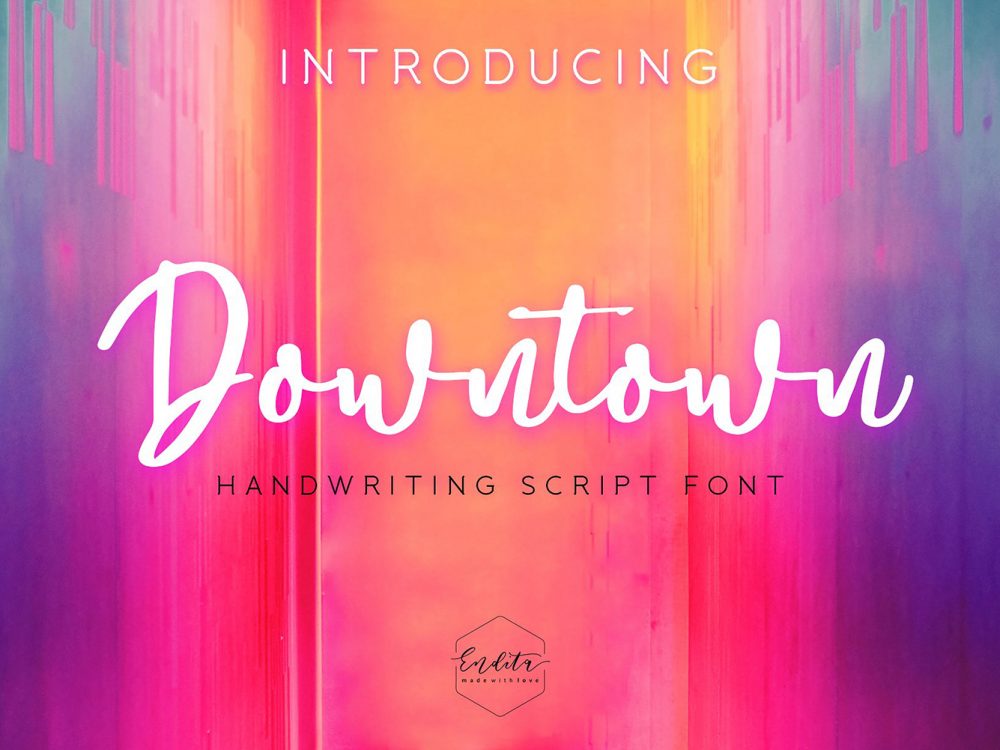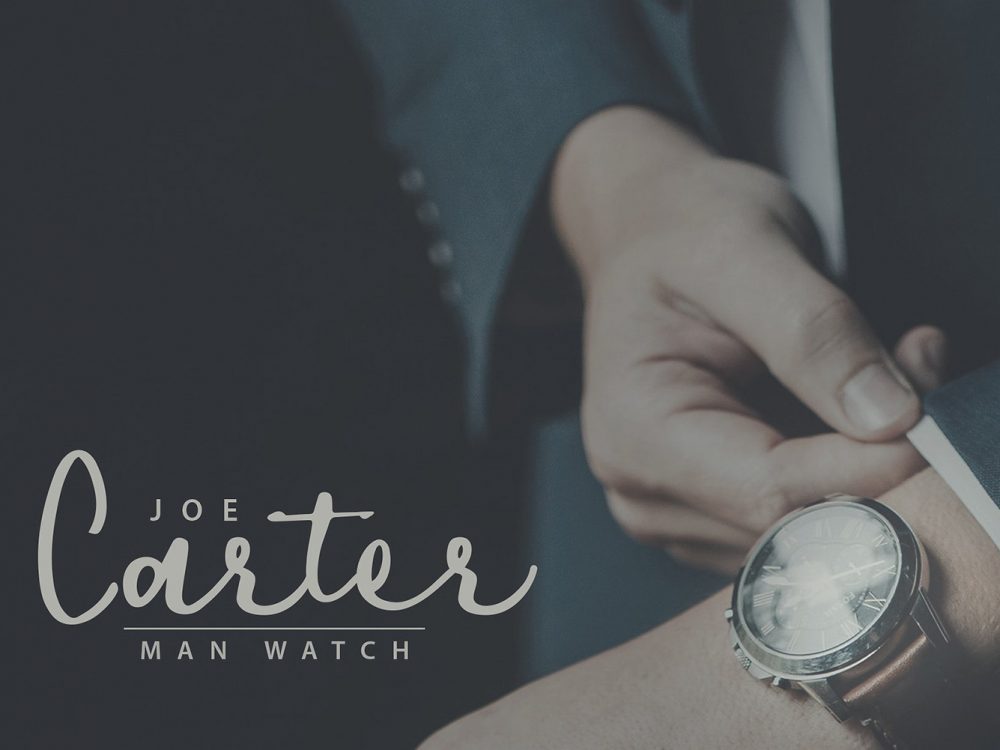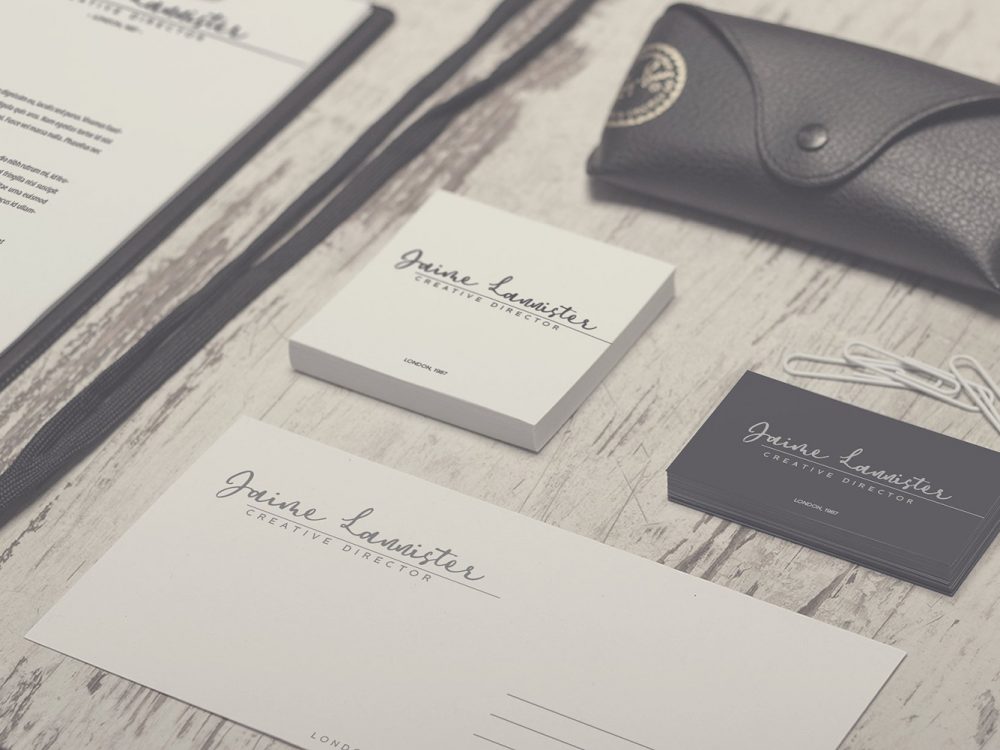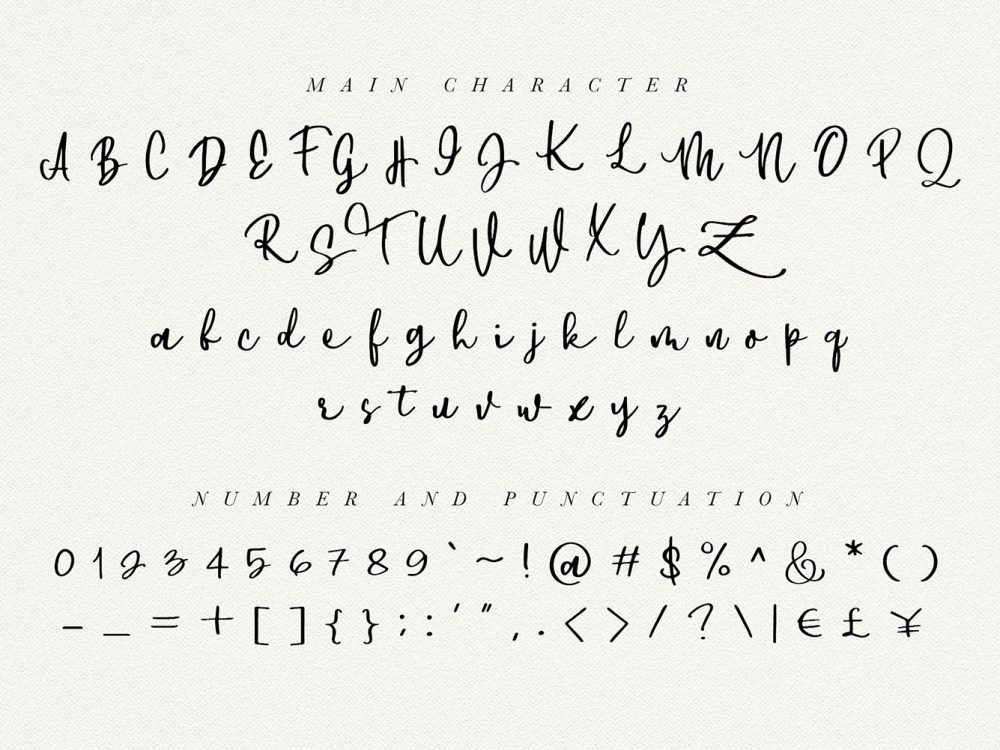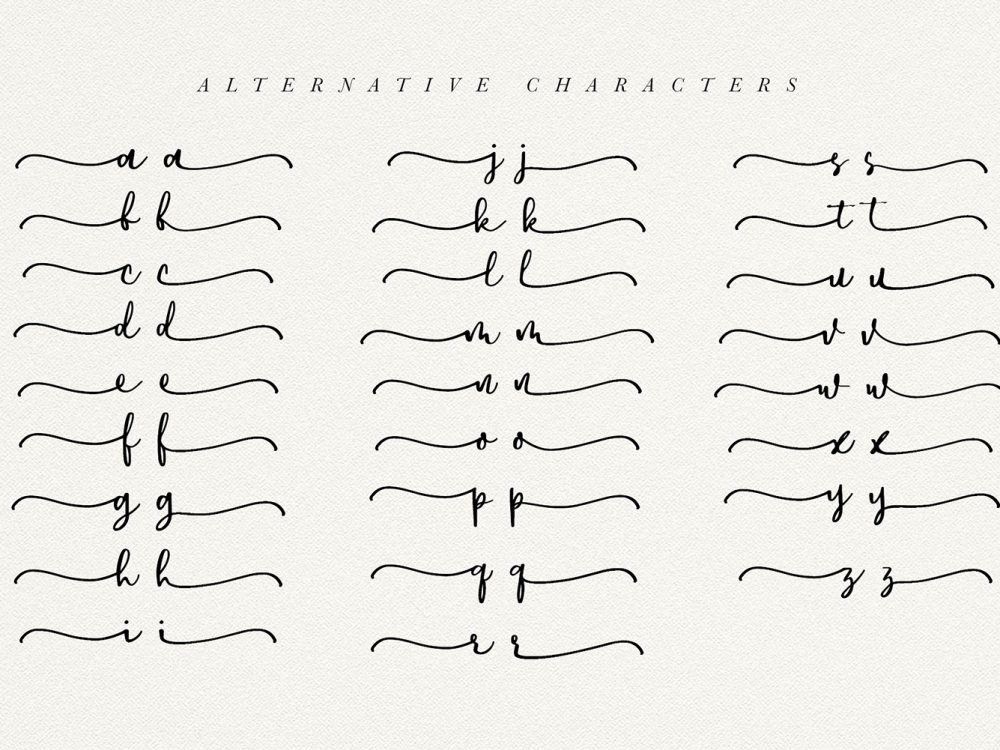
Downtown Free Font
Downtown Free Font is naturally made from hand-lettered calligraphy which compares favorably with modern calligraphic style among other fonts. This font is very suitable for creating various projects that require a scripted handwritten font. Use this font to create memorable romantic posters, wedding invitations, greeting cards, branding, flyers, t-shirt and pillow prints, and more. If you like it don’t forget to check out the full version.